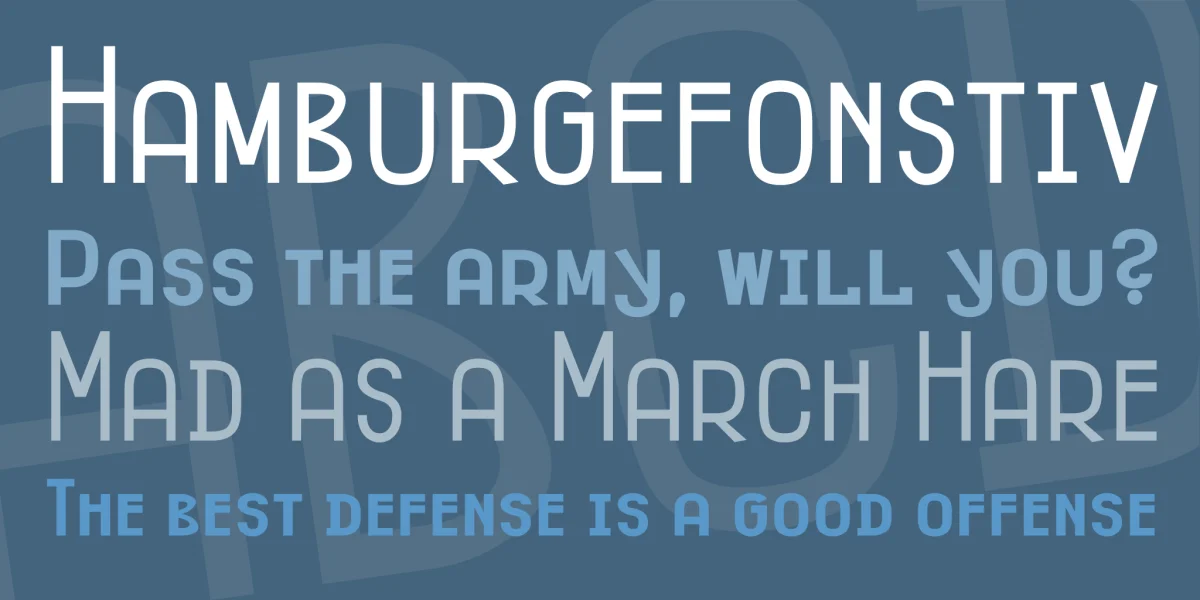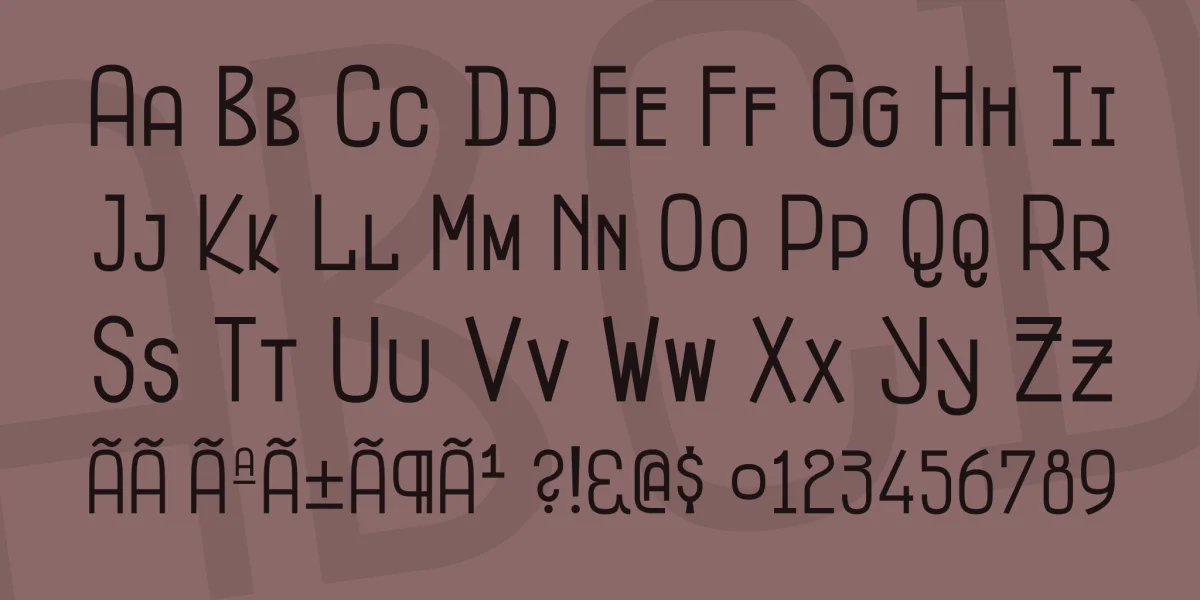
More puzzle lettering. This time I was doing cryptarithms, those puzzles where an arithmetic problem has been encoded, letters for numbers, and you have to figure out the solution. This weird art-decoish font came out, and so I named it after an appropriate author. It didn't occur to me until later that FITZGERALD had ten different, non-repeating letters, which make it a pretty good cryptarithm key....
Also comes with a "black" version so you can waste more ink when you print with it.